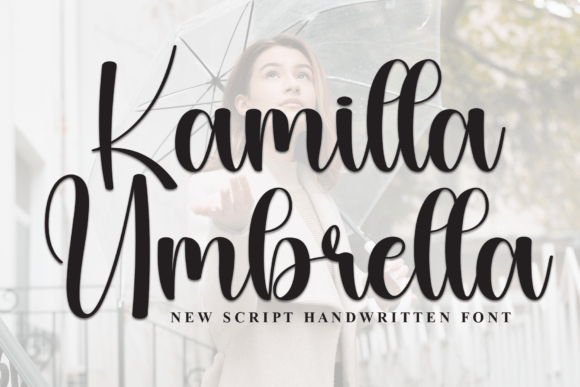
The Perfect Pen Stroke for Your Next Creative Project
There’s nothing quite like the feeling of holding a pen and putting your thoughts onto paper. The scratch of the nib, the flow of the ink, and the unique character that emerges with each stroke – it’s a truly magical experience. As designers, we’re always on the lookout for ways to capture this essence in our digital creations, and that’s where the Kamilla Umbrella Font comes in.
This beautiful font is designed to mimic the natural charm of handwriting, with smooth curves and authentic pen strokes that bring a touch of elegance to any project. Whether you’re crafting a wedding invitation, designing a logo, or creating social media posts, the Kamilla Umbrella Font is the perfect choice for adding a personal touch to your branding. Its timeless handwritten style and legibility make it a valuable asset for designers looking to add a unique touch to their work.
Kamilla Umbrella Font Key Features
- Font Family: Kamilla Umbrella Font is a unique, hand-drawn font family designed for various creative applications.
- Unique Characteristics: Kamilla Umbrella Font features a mix of elegant and playful elements, making it perfect for branding, advertising, and editorial projects.
- Characters: The font family includes a wide range of characters, including uppercase and lowercase letters, numbers, punctuation marks, and special symbols.
Kamilla Umbrella Font Review
First off, I want to say that I was really excited to dive into the Kamilla Umbrella Font. The first thing that caught my eye was the ✨ versatility of the font – it can be used for both children’s book titles and luxury brand logos. The font is playful, yet elegant, making it a great choice for a wide range of projects.
The ✨ ligatures and ✨ swashes add a touch of whimsy to the font, making it stand out from more generic sans-serif fonts. I also appreciate the ✨ scalability of the font, as it looks great in both small and large sizes.
Unfortunately, the Kamilla Umbrella Font is not without its limitations. ⚠️ Lack of language support is a major concern, as it only includes Latin characters. This may be a deal-breaker for designers working on projects that require non-Latin scripts.
Overall, I think the Kamilla Umbrella Font is a great addition to any designer’s toolkit. While it has its limitations, its versatility and unique features make it a great choice for projects that require a touch of whimsy and elegance.
- ✨ Versatility: suitable for children’s book titles and luxury brand logos
- ✨ Ligatures and swashes: add a touch of whimsy to the font
- ✨ Scalability: looks great in both small and large sizes
- ⚠️ Lack of language support: only includes Latin characters
Kamilla Umbrella Font Practical Application Guide
The Kamilla Umbrella Font is a versatile font suitable for various designs, including:
– Children’s book illustrations
– Whimsical greeting cards
– Playful branding and logos
– Vintage-inspired designs
– Educational materials and worksheets
For the best results, use the Kamilla Umbrella Font in conjunction with other playful and whimsical design elements. Experiment with different font sizes, styles, and combinations to create a unique look. You can also pair the font with bold lines, bright colors, and playful textures to enhance its visual appeal.
Alternatives to Kamilla Umbrella FontThe Kamilla Umbrella Font is a unique and creative sans-serif font, but there are other alternatives that designers can consider. Here are a few options: